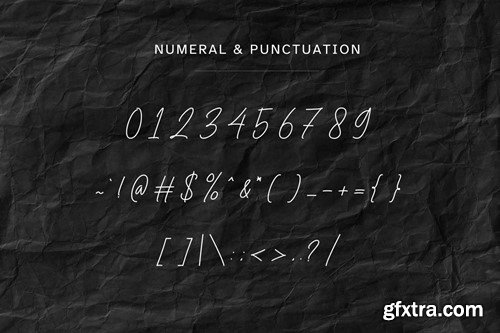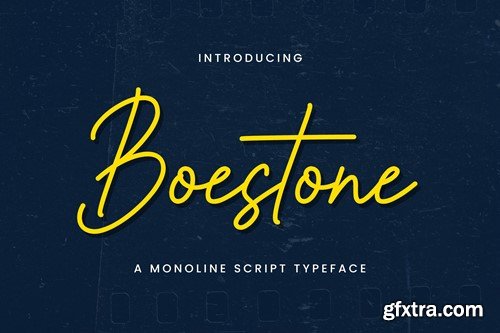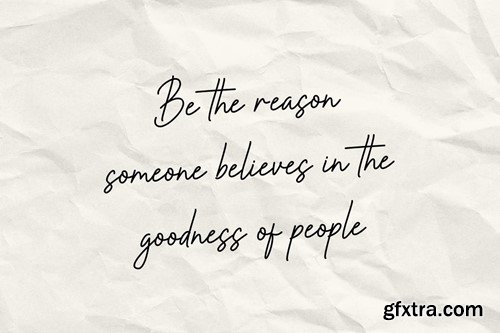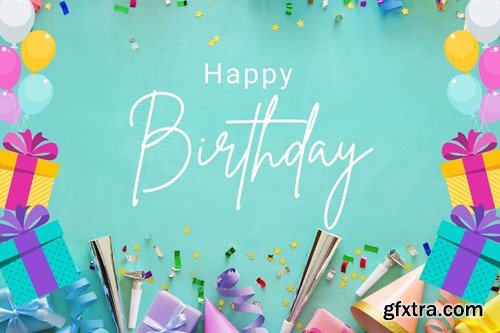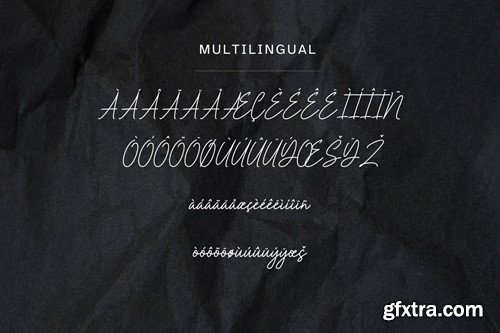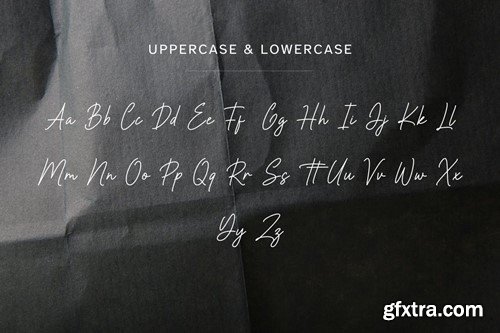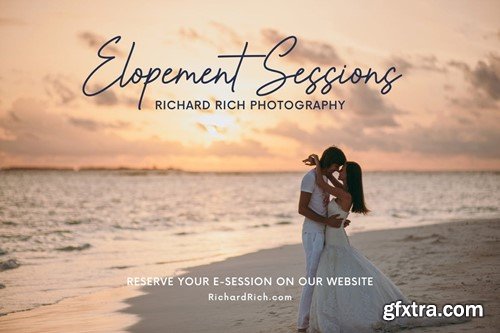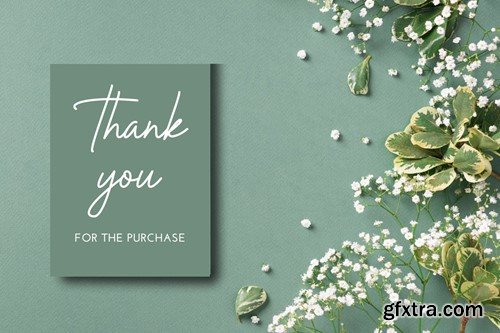
宝石体 - 一种一栏手写字体 89KA5LX
Boestone - A Monoline Script Typeface 89KA5LX
Boestone - A Monoline Script Typeface
Boestone is a versatile monoline script typeface that brings elegance and sophistication to your projects. With its smooth curves and balanced strokes, Boestone adds a touch of charm to any design. Whether you're creating wedding invitations, branding materials, or product packaging, this typeface offers a timeless appeal that resonates with modern aesthetics.
Boestone is crafted with precision to ensure readability and legibility across various platforms and media. Its seamless connectivity and refined letterforms make it perfect for both print and digital applications. Elevate your designs with Boestone and make a lasting impression on your audience.